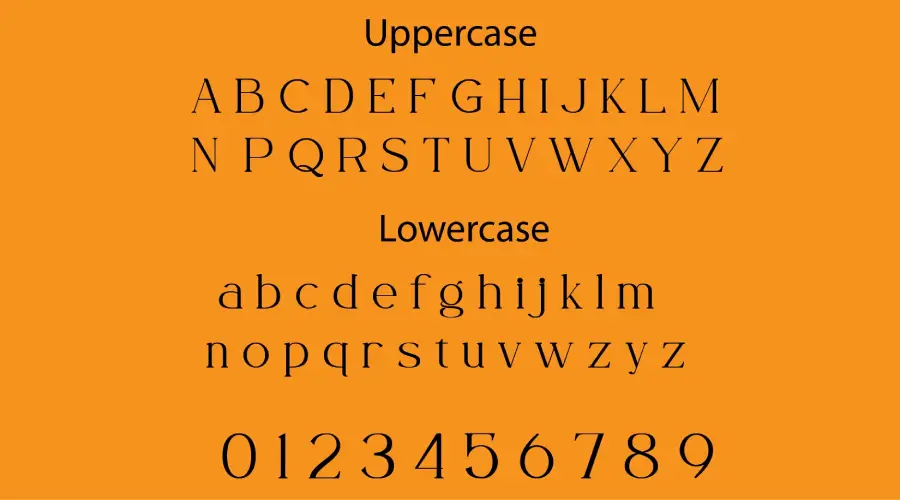
Fogie font is a contemporary serif font family. It comes with 10 fonts. Fogie font family also comes with a variety of alternate ligatures as well as alternate. It was designed with the power of OpenType capabilities in mind, this family is ideal for graphic design as well as any screen-based use. It can be used in signage, web and business, and editorial design. This font has a broad selection of styles that will assist you in determining the ideal style for your project including body text and huge titles, ranging from classic styles to modern and striking styles. It can be used for signage, web corporate, as well as in editorial designs. Thin style is free for personal purposes. Thin style is free, so you can test it for your content.
Fogie font was designed by Donis Miftahudin and published by Din Studio.
- Kerning
- Alternates
- Ligatures
- Stylistic Sets
This typeface can be used for invitations, logos & branding, photos, advertisements, watermarks, social media posts, product packaging, product designs, labels, wedding designs, stationery, special events, or anything else that requires an elegant and vintage feel. It will also be used to create beautiful images and text in many colors and styles.
Fogie is a contemporary serif font family. It comes with 10 fonts.